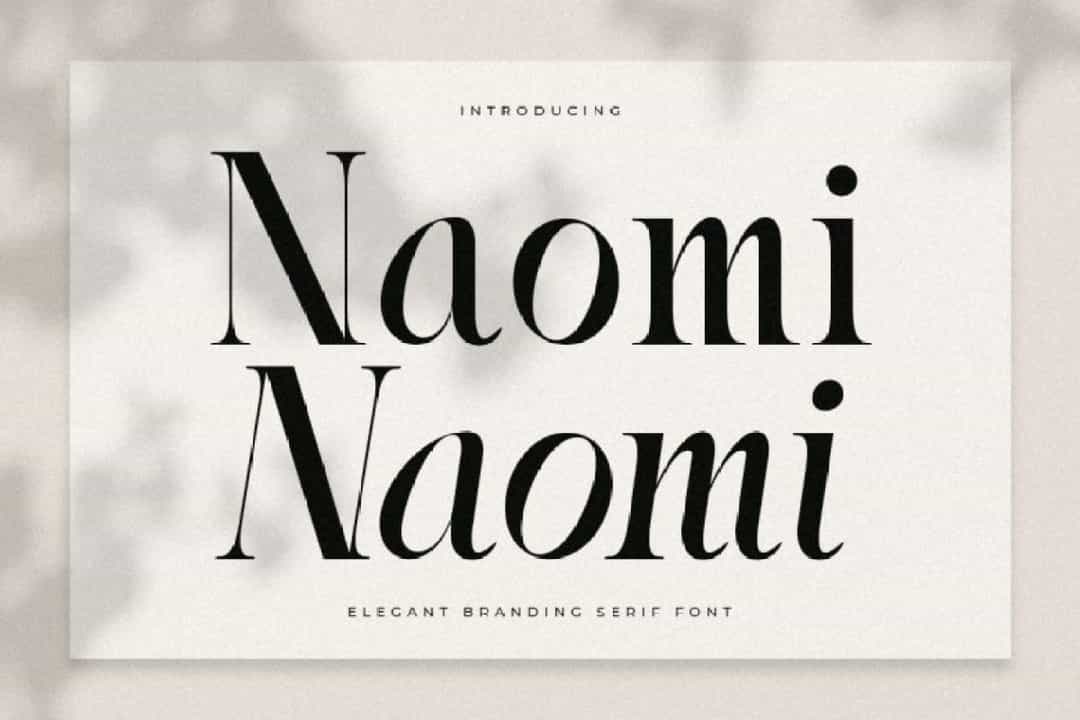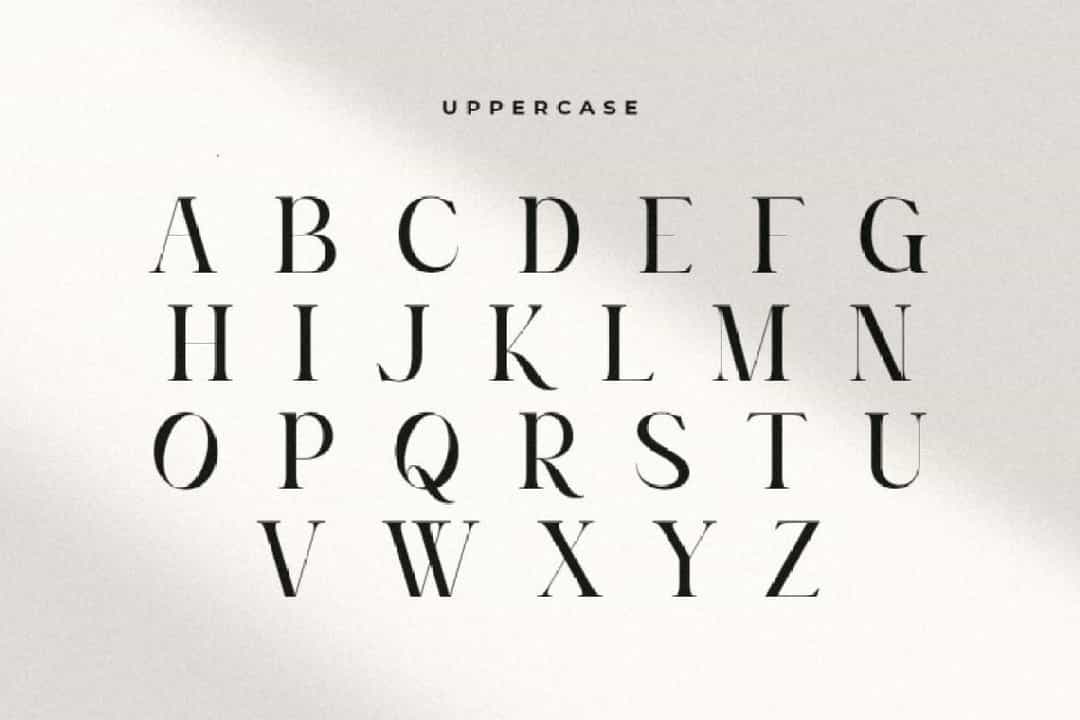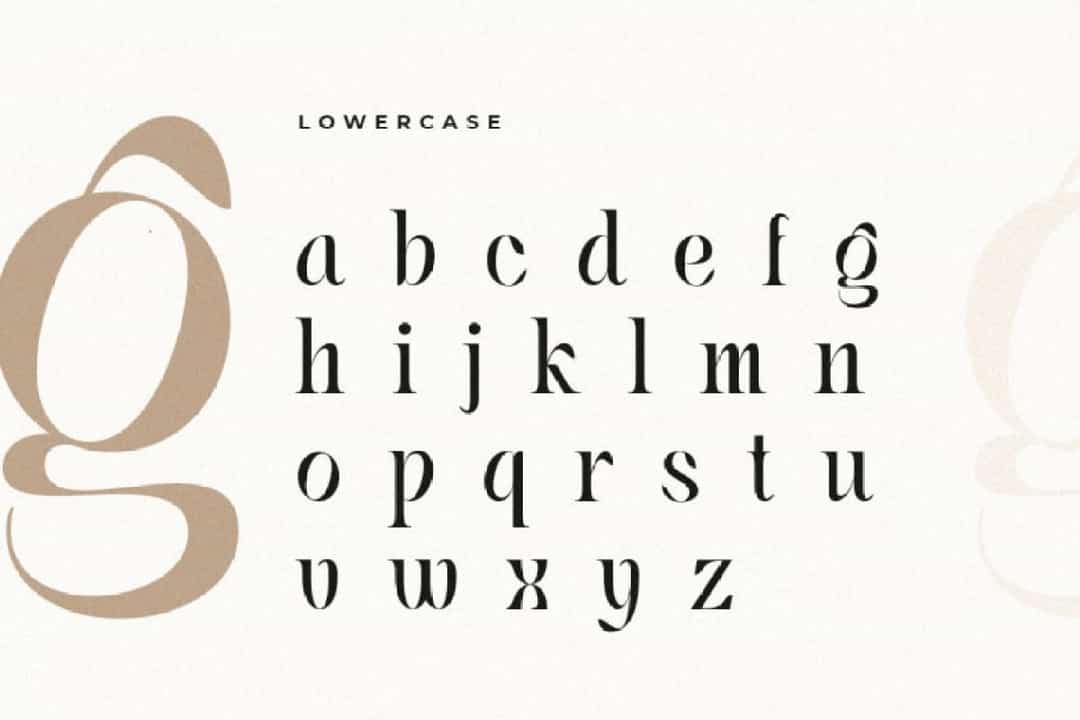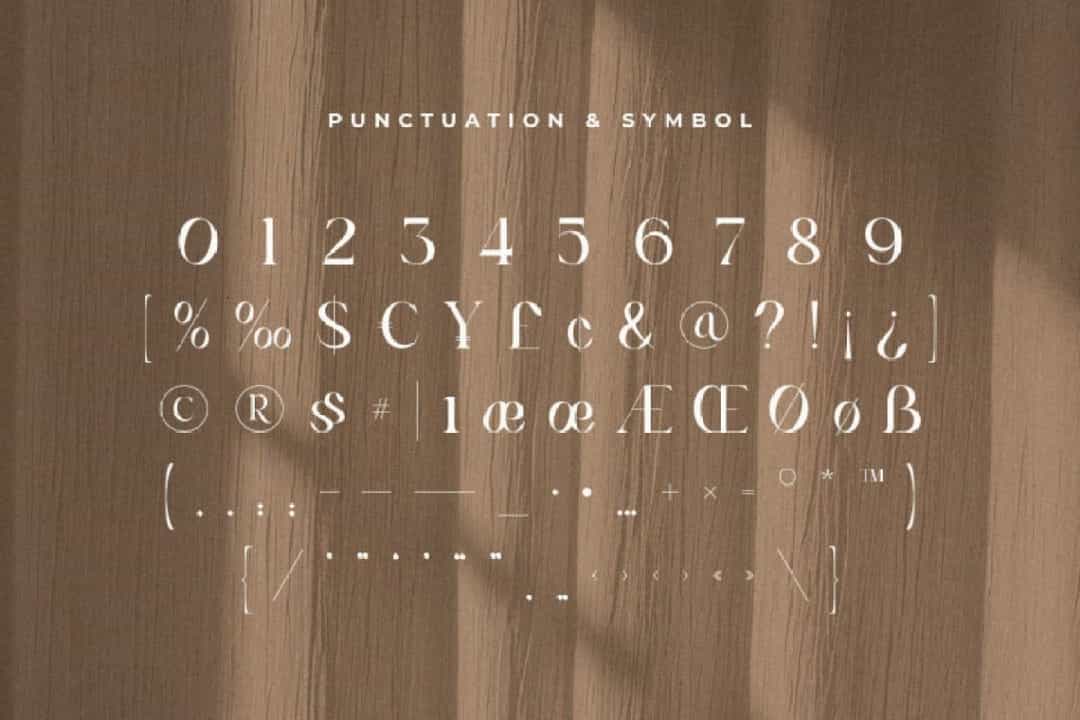
Naomi is a sophisticated and sleek serif font created & distributed by Sensatype Studio. It is a new one designed to suit the unique branding needs and comes with a unique style that emphasizes your brand. Ideal for designers and product owners in pursuit of options on how to implement an element of city style into their designs.